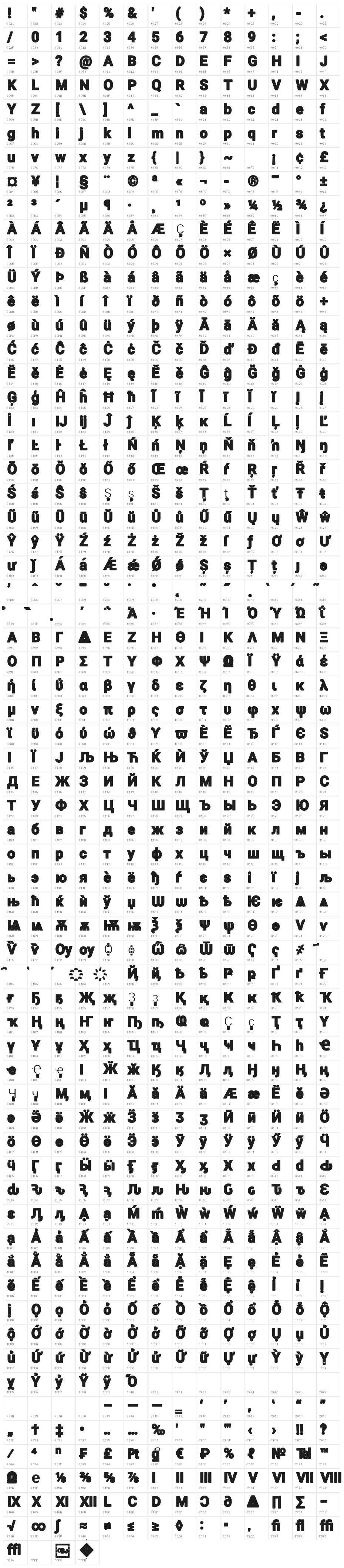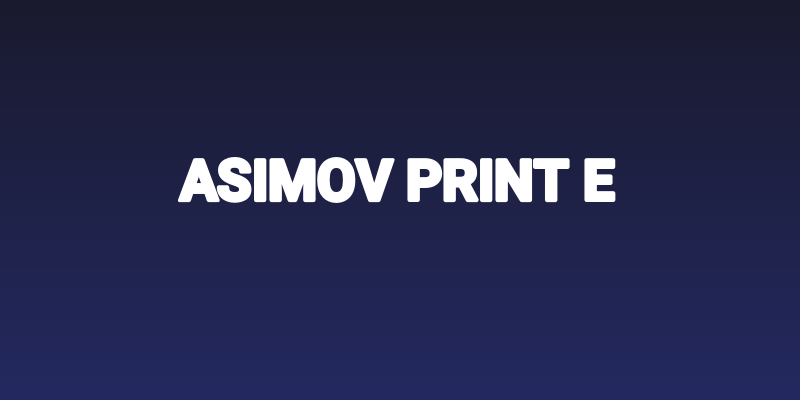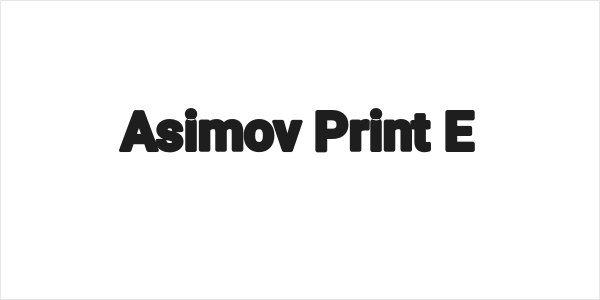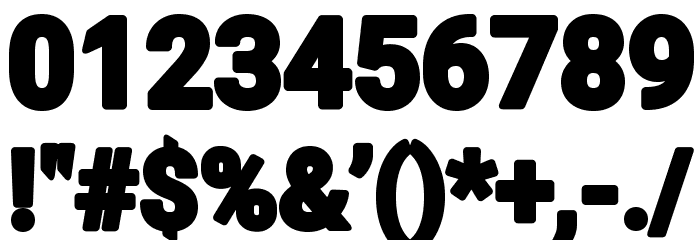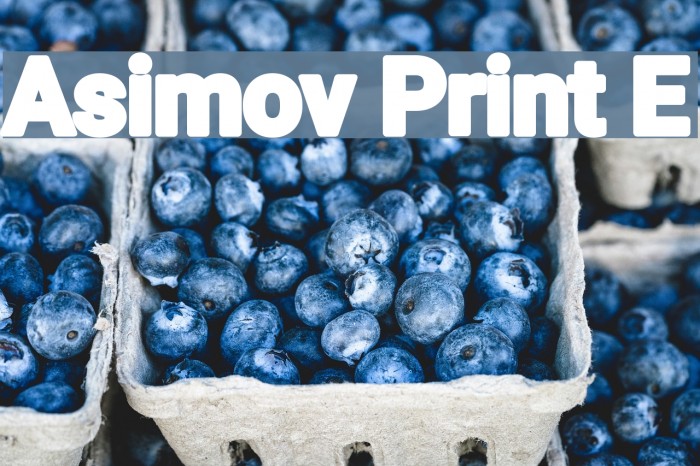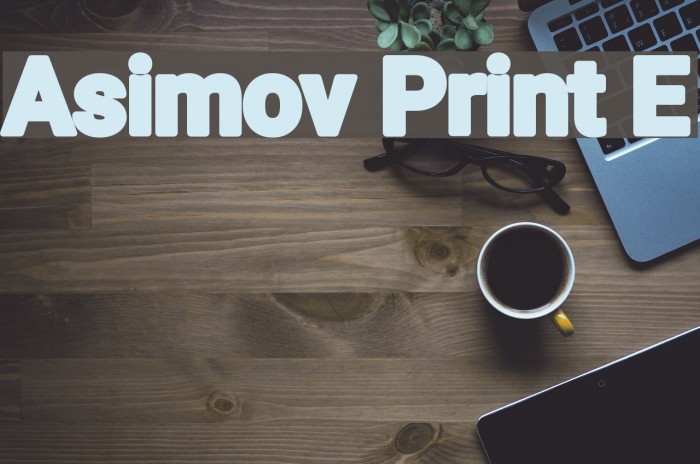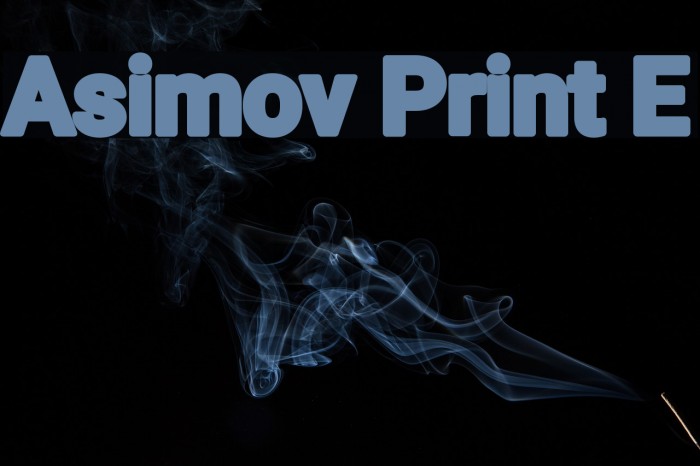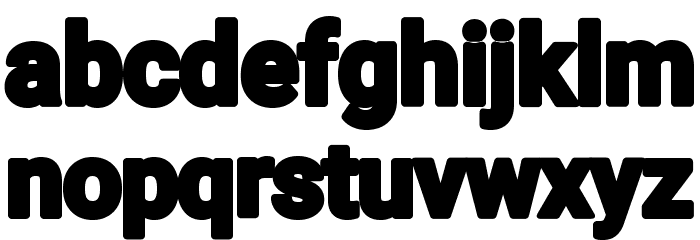
Asimov Print E Font
Asimov Print E Description
This font features bold, thick strokes with a strong presence, making it ideal for impactful designs. The characters are uniformly wide, giving a sense of stability and strength. The uppercase and lowercase letters are well-proportioned, with rounded edges that soften the overall look. The numerals are clear and easily distinguishable, while the special characters maintain the same bold style. This font is highly legible and commands attention, making it suitable for various design applications.
| Proposed Projects | Ideal for posters, headlines, branding, and any design requiring a bold statement. |